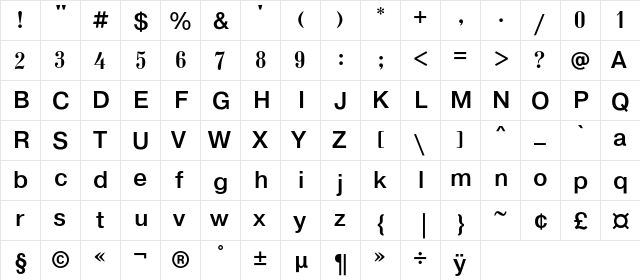
DumbadzeDisplay Regular
Design Context for DumbadzeDisplay Typeface
DumbadzeDisplay is built around its visual character rather than neutral utility — its distinctive forms are designed to make an impression at display sizes.
Font Pairing: Pair with a clean neutral sans-serif for body copy to let DumbadzeDisplay's character lead without overwhelming the composition.
Pro Tip: Treat DumbadzeDisplay as the centrepiece of your typographic hierarchy. One strong heading set in a decorative face can carry an entire layout.